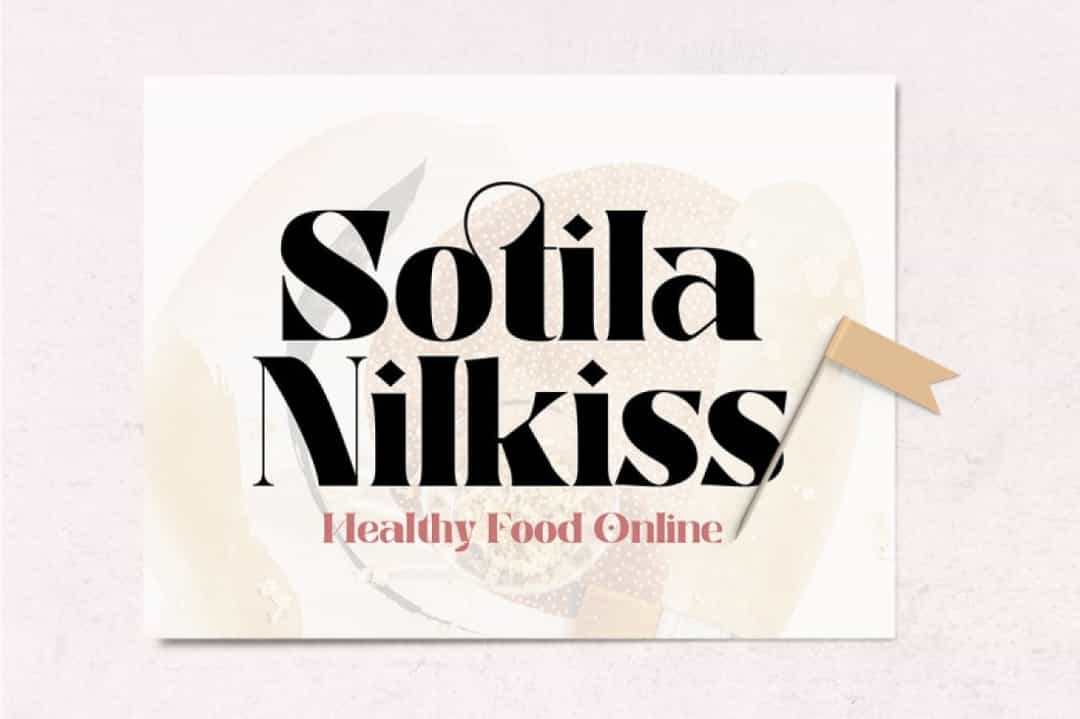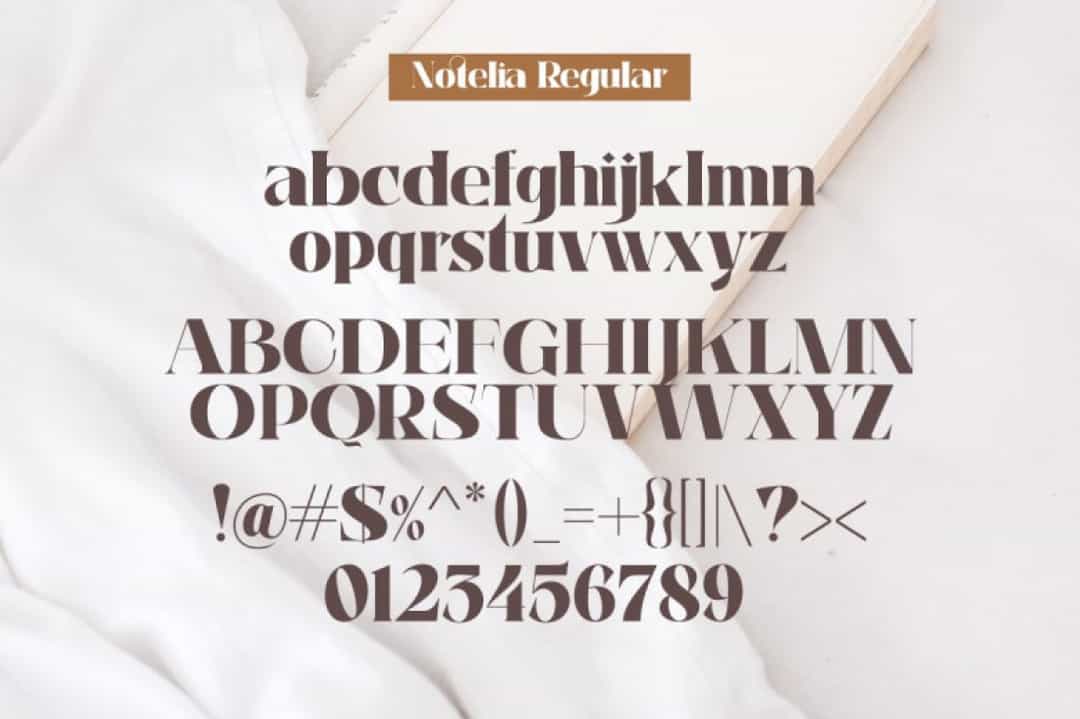
Notelia The sophisticated serif font I use is a riot of creativity and perfection shaped from today’s exquisite serif design. Bold yet balanced and varied it features lowercase numbers, letters, punctuation symbols and punctuation marks for elegance and grace. Perfect for posters, branding projects, web design badges illustrations or other creative projects!